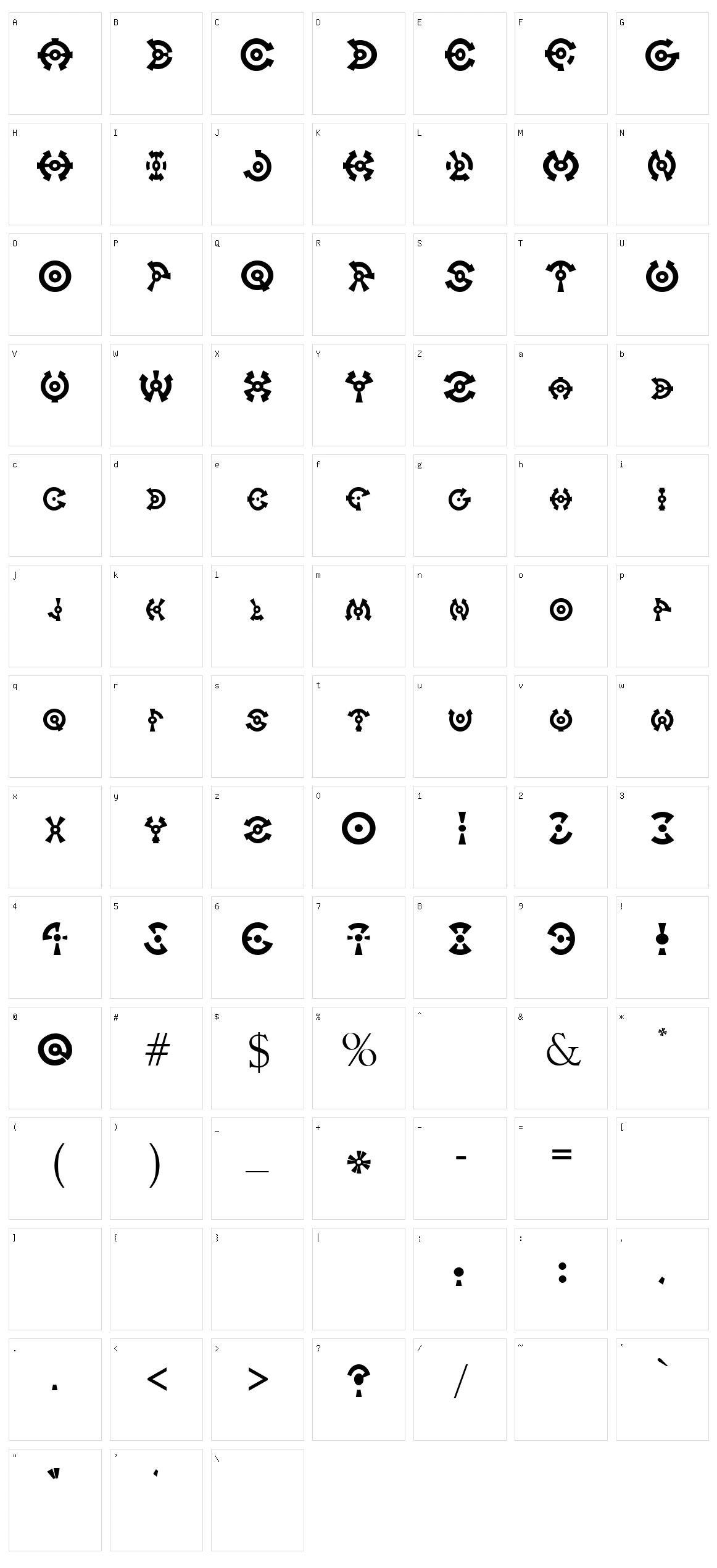
The free font On Target is carefully designed by Mahdi Salah, showcasing a thoughtful balance of creativity and usability and falls under the Decorative font style. When you download the ZIP file, it contains only 22.08 KB of font files, making it lightweight and quick to download. Please review the license details below to understand permitted usage and distribution rights. If license information is not available, we recommend using this font for personal projects only or contacting the author directly for commercial usage permissions.